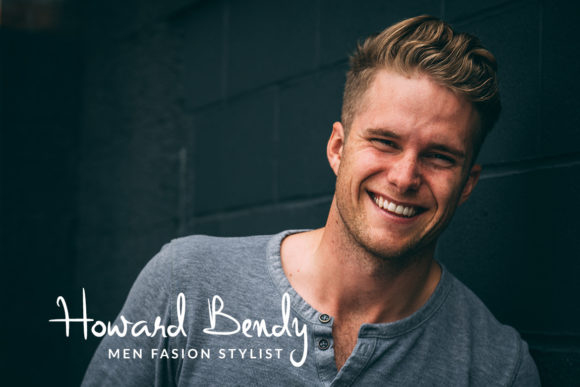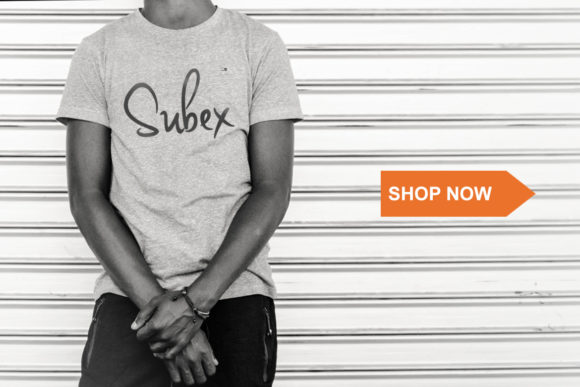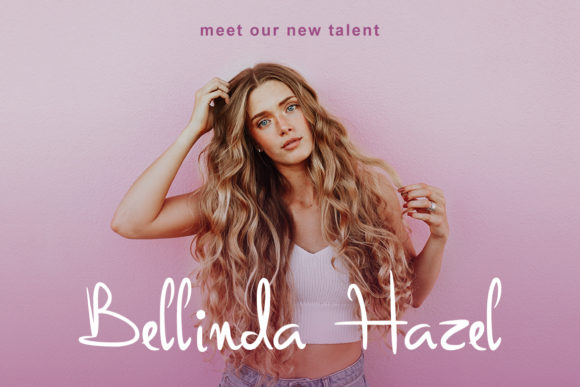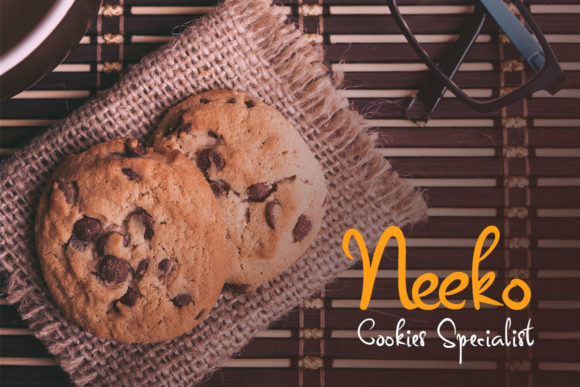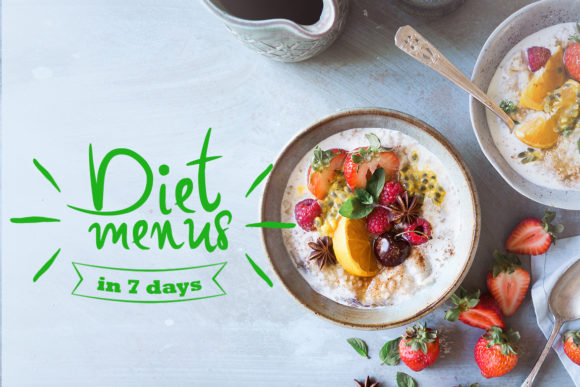
Oureet Font
About Oureet Font
The Oureet is a simple handwritten font. Its natural handwritten style is perfect for invitations, quotes, thank you cards, greeting cards, logos, and much more!